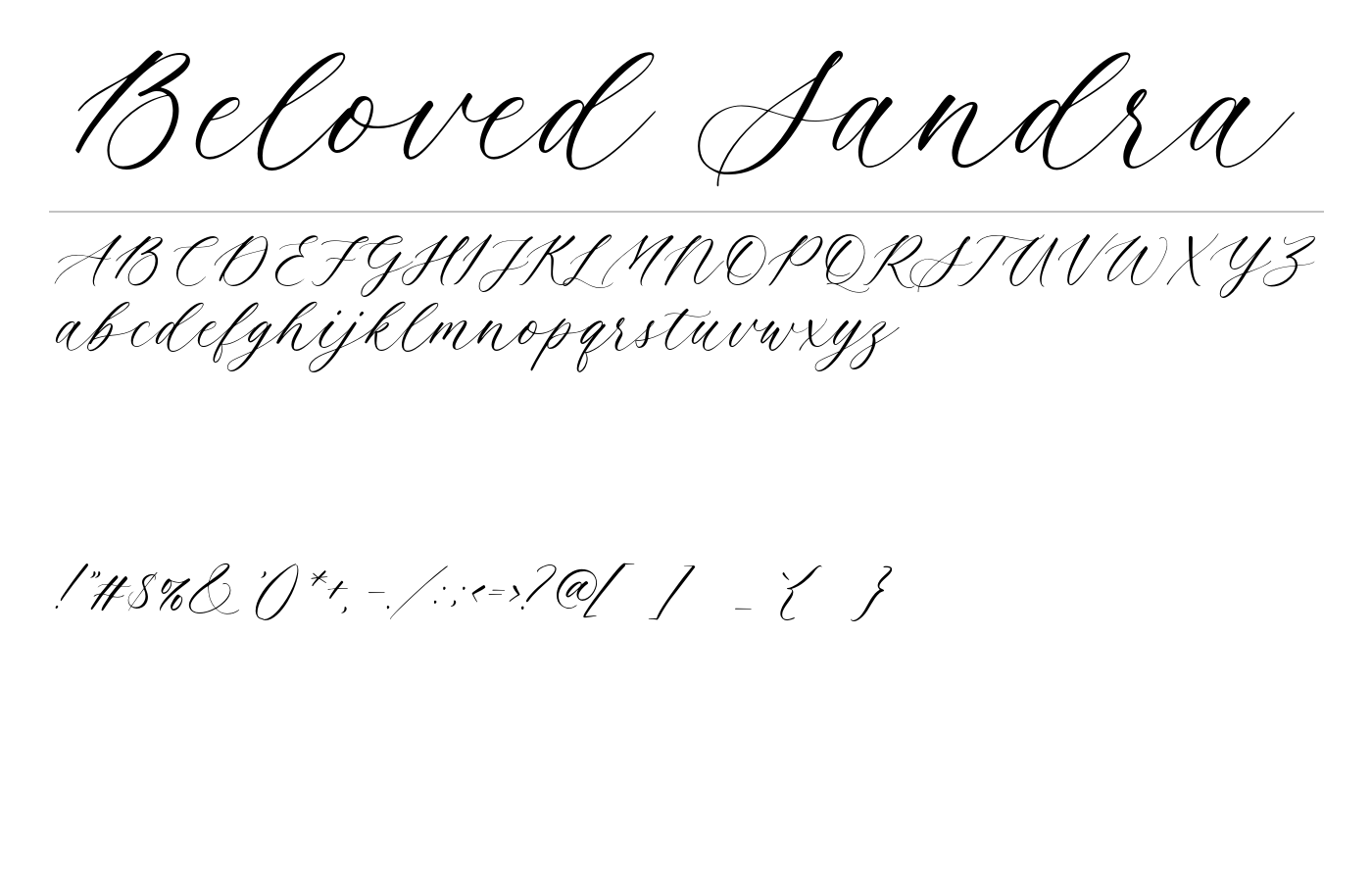
Beloved Sandra is a delicate script font characterized by elegant, flowing strokes and a refined, handwritten feel. Its light weight and high contrast with graceful swashes make it perfect for romantic, feminine designs such as wedding invitations, luxury branding, and stylish editorial projects where an intimate, sophisticated touch is desired.
Beloved Sandra Font
About Beloved Sandra Font